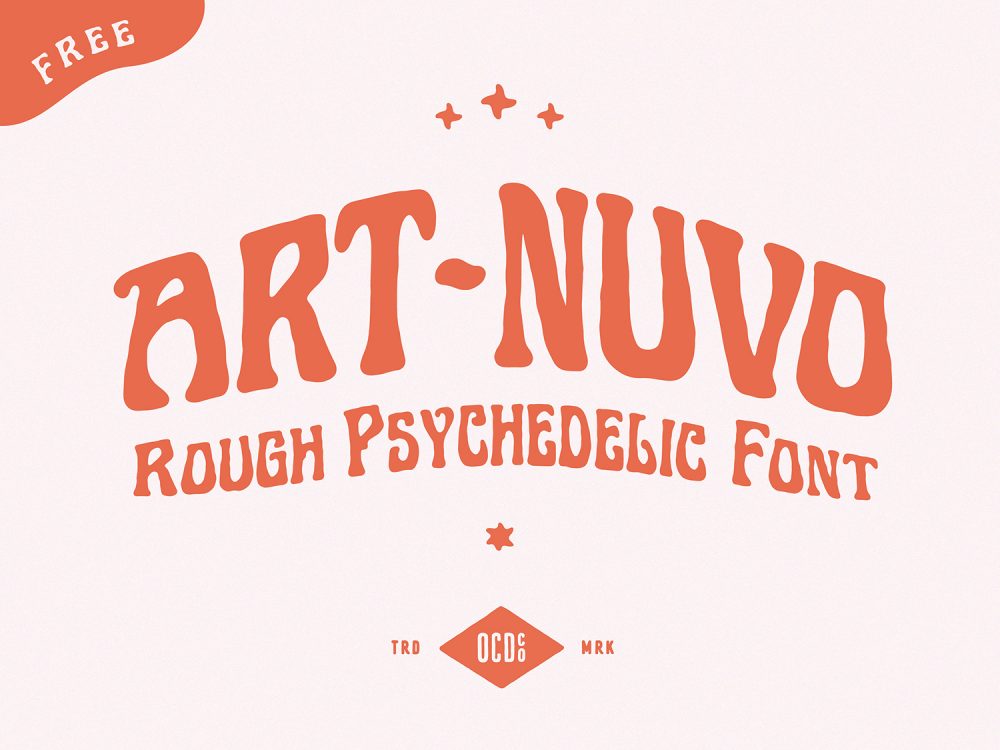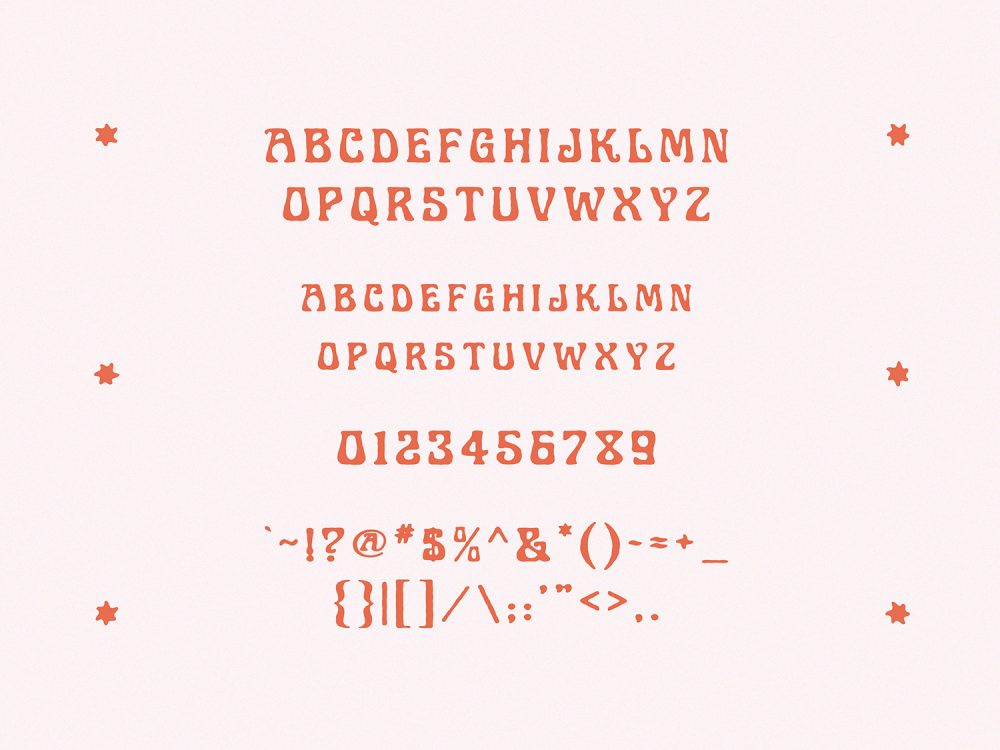
Art Nuvo Free Display Font
Art Nuvo Free Display Font is an interesting unusual font that will help add uniqueness to your design projects. This font is perfect for creating a variety of vintage-style projects. These can be invitations, posters, postcards, flyers, prints, and more.